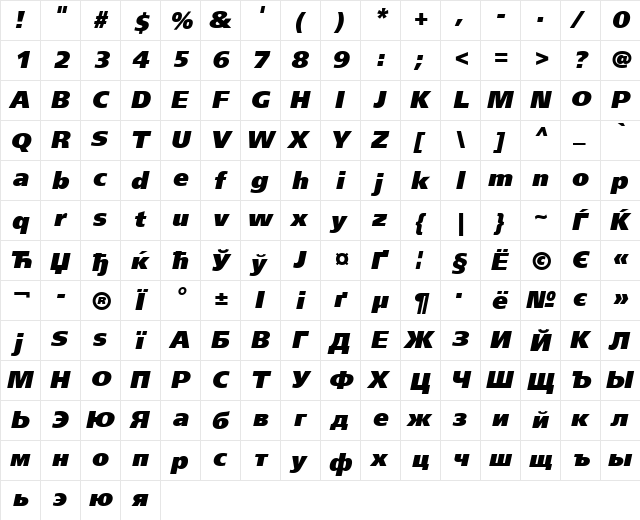
FreeSetBlackC Italic
Design Context for FreeSetBlackC Typeface
FreeSetBlackC offers clean, dependable letterforms without strong stylistic allegiance, making it a practical choice for designers who need flexibility. The slanted form adds forward momentum and visual energy.